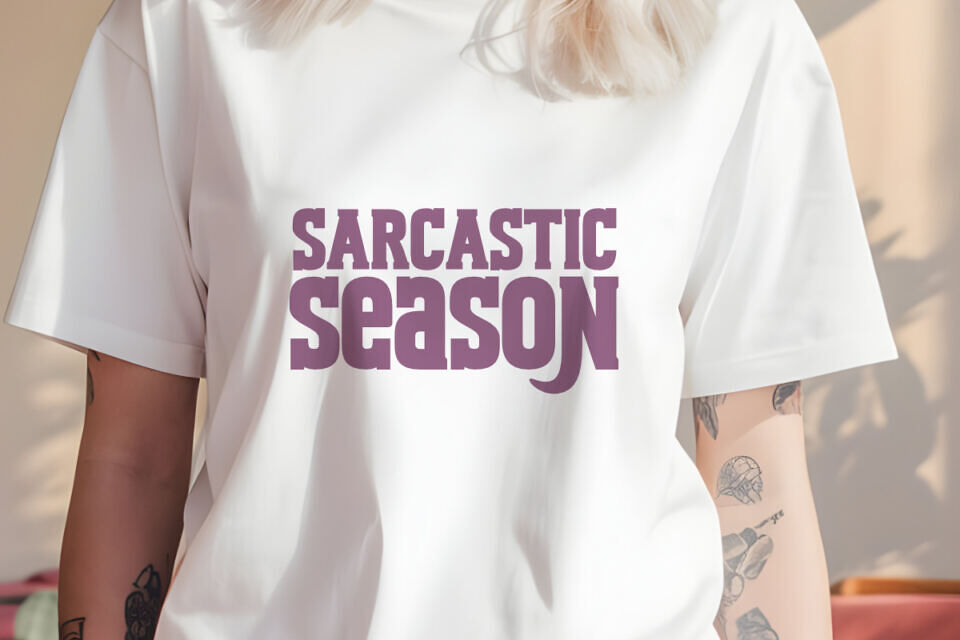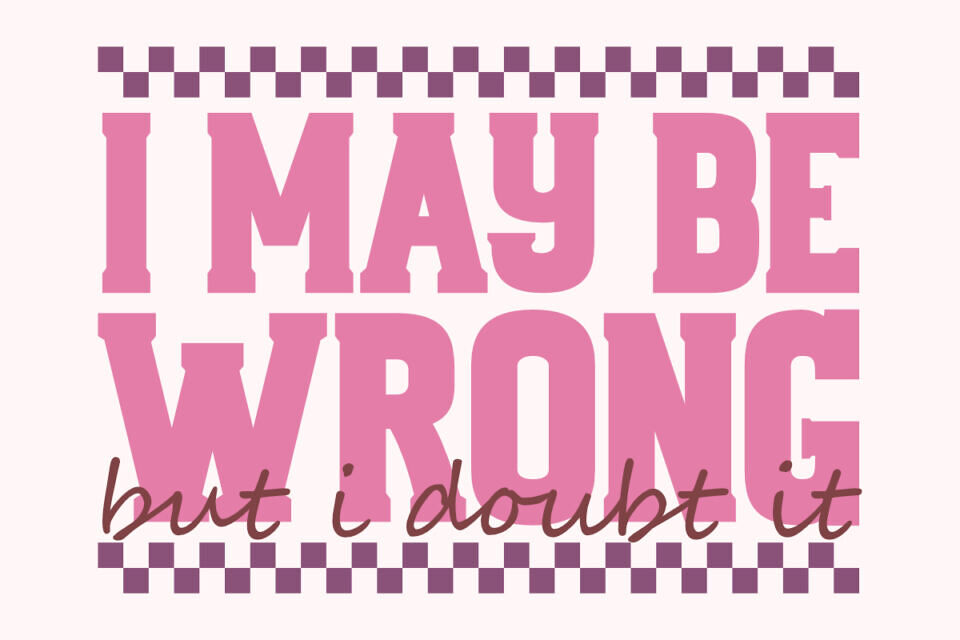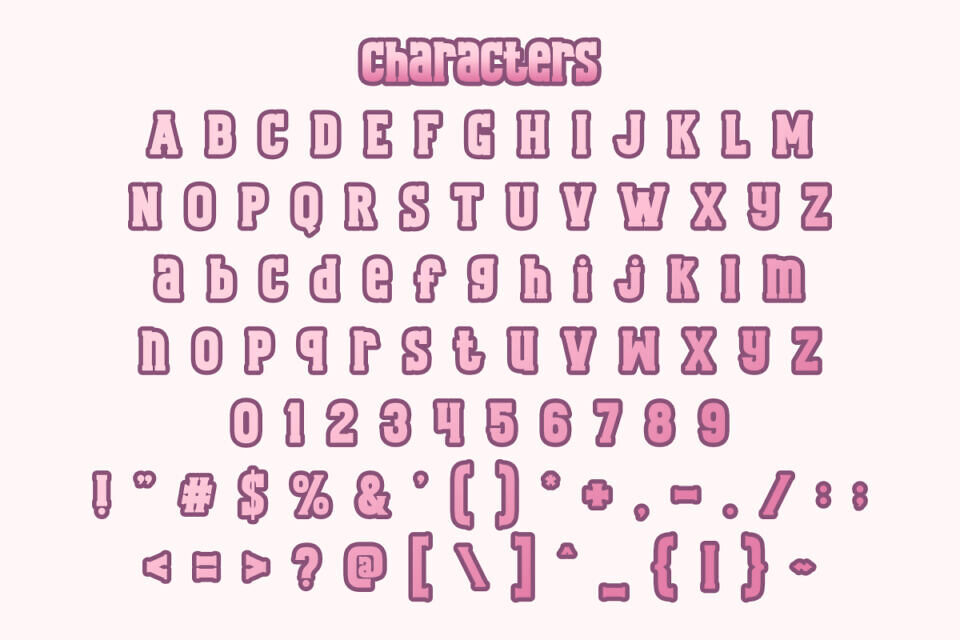
Funny Ducks is a bold, playful display font with a cheeky attitude and a splash of sarcasm. Its fun and chunky letterforms make it ideal for sassy quotes, sarcastic mugs, humorous t-shirts, and quirky tote bags.
Whether you’re designing for your print-on-demand store, selling funny SVGs on Etsy, or creating eye-catching Cricut and sublimation projects, this font adds that perfect touch of bold sarcasm with a soft and stylish twist.